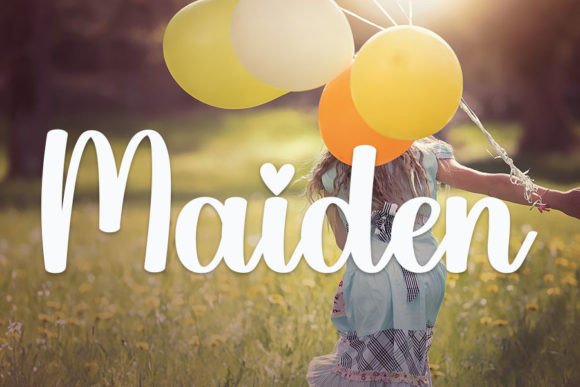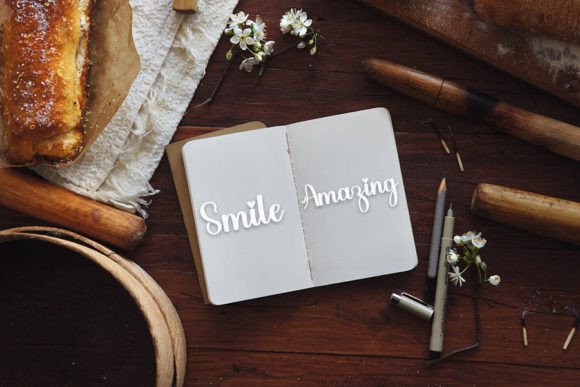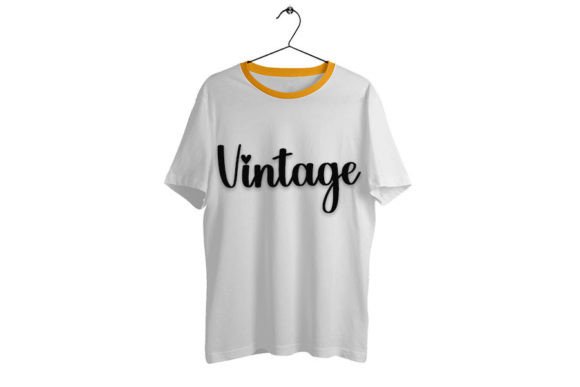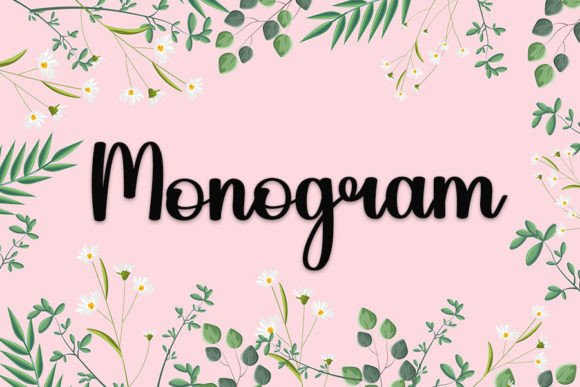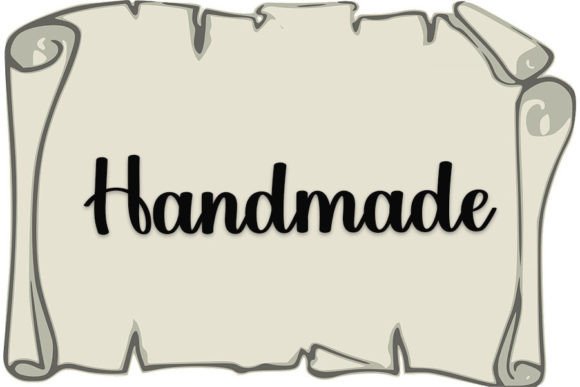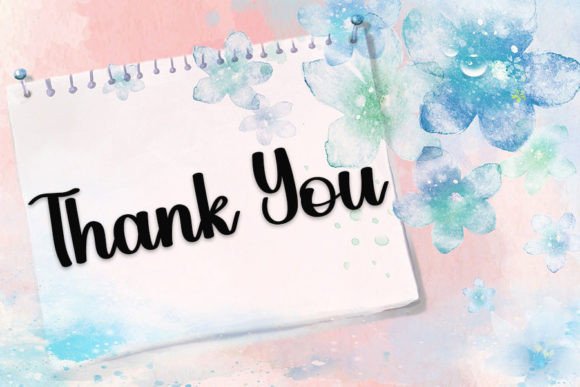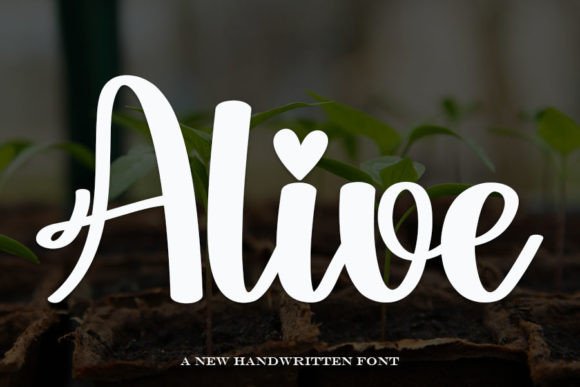
Discover the Elegance of Alive Font: Elevate Your Designs with a Timeless Handwritten Style
Are you on the hunt for a font that adds a touch of elegance and sophistication to your designs? Look no further than the Alive Font, a stunning handwritten font that is sure to capture your heart. With its incredibly distinct and timeless style, Alive Font is the perfect choice for designers and crafters looking to create spectacular designs that stand out from the crowd.
What Makes Alive Font So Special?
Alive Font is a neat and beautiful handwritten font that boasts an elegant touch, making it ideal for a wide range of projects. Whether you’re working on a branding campaign, a wedding invitation, or a social media graphic, this font is sure to bring a level of sophistication and refinement to your design. Its unique and distinctive style is sure to set your project apart, making it a standout in a sea of ordinary designs.
The Characteristics of Alive Font
So, what makes Alive Font so unique? Here are just a few of its key characteristics:
- Elegant and Refined: Alive Font features a sleek and sophisticated design that exudes elegance and refinement.
- Handwritten Style: With its handwritten style, Alive Font adds a touch of personality and whimsy to your designs.
- Distinctive and Timeless: This font’s unique style is sure to stand the test of time, making it a great choice for projects that need to look great for years to come.
- Versatile: Alive Font is perfect for a wide range of projects, from branding and advertising to wedding invitations and social media graphics.
How to Use Alive Font in Your Designs
Alive Font is incredibly easy to use, making it a great choice for designers of all skill levels. Here are a few tips for incorporating Alive Font into your designs:
- Pair it with Other Fonts: Alive Font pairs perfectly with a range of other fonts, making it easy to create stunning font combinations.
- Use it for Headings and Titles: This font is perfect for headings and titles, adding a touch of elegance and sophistication to your design.
- Add it to Your Branding: Alive Font is a great choice for branding campaigns, adding a level of refinement and sophistication to your logo and marketing materials.
Why Designers and Crafters Love Alive Font
Alive Font has quickly become a favorite among designers and crafters, and it’s easy to see why. Here are just a few reasons why this font has captured the hearts of so many:
- Unique and Distinctive: Alive Font’s unique style sets it apart from other fonts, making it a great choice for designers looking to create something truly special.
- Elegant and Refined: This font’s elegant and refined design makes it perfect for projects that require a level of sophistication and luxury.
- Easy to Use: Alive Font is incredibly easy to use, making it a great choice for designers of all skill levels.
If you’re looking for a font that adds a touch of elegance and sophistication to your designs, look no further than Alive Font. With its incredibly distinct and timeless style, this stunning handwritten font is sure to capture your heart and elevate your designs to the next level. Whether you’re a designer, crafter, or simply someone who appreciates great design, Alive Font is a must-have addition to your font collection.